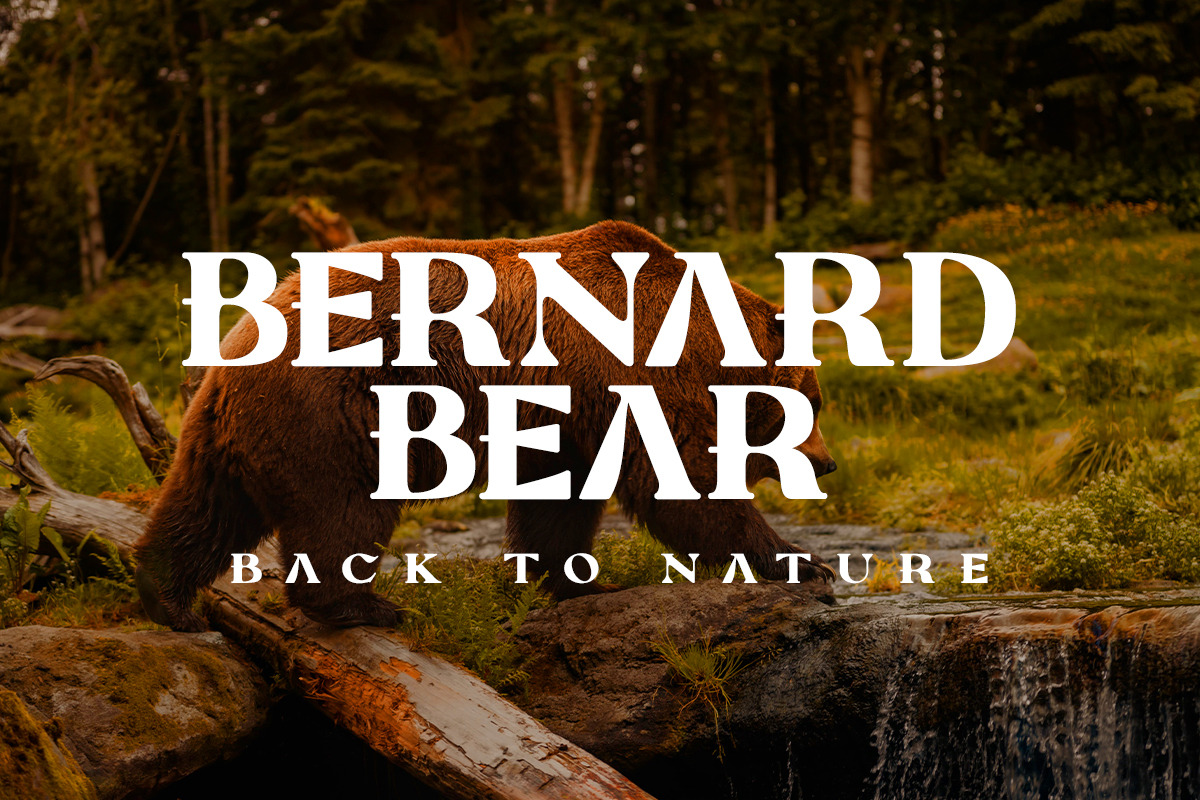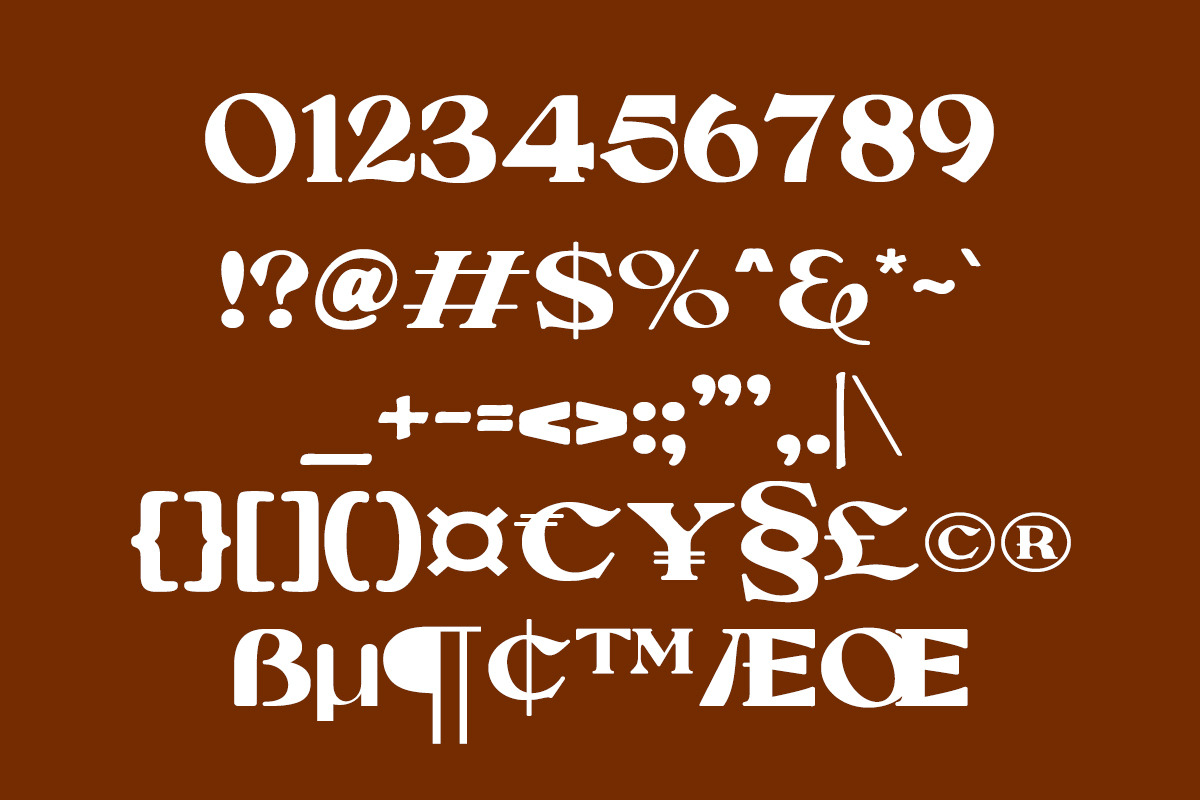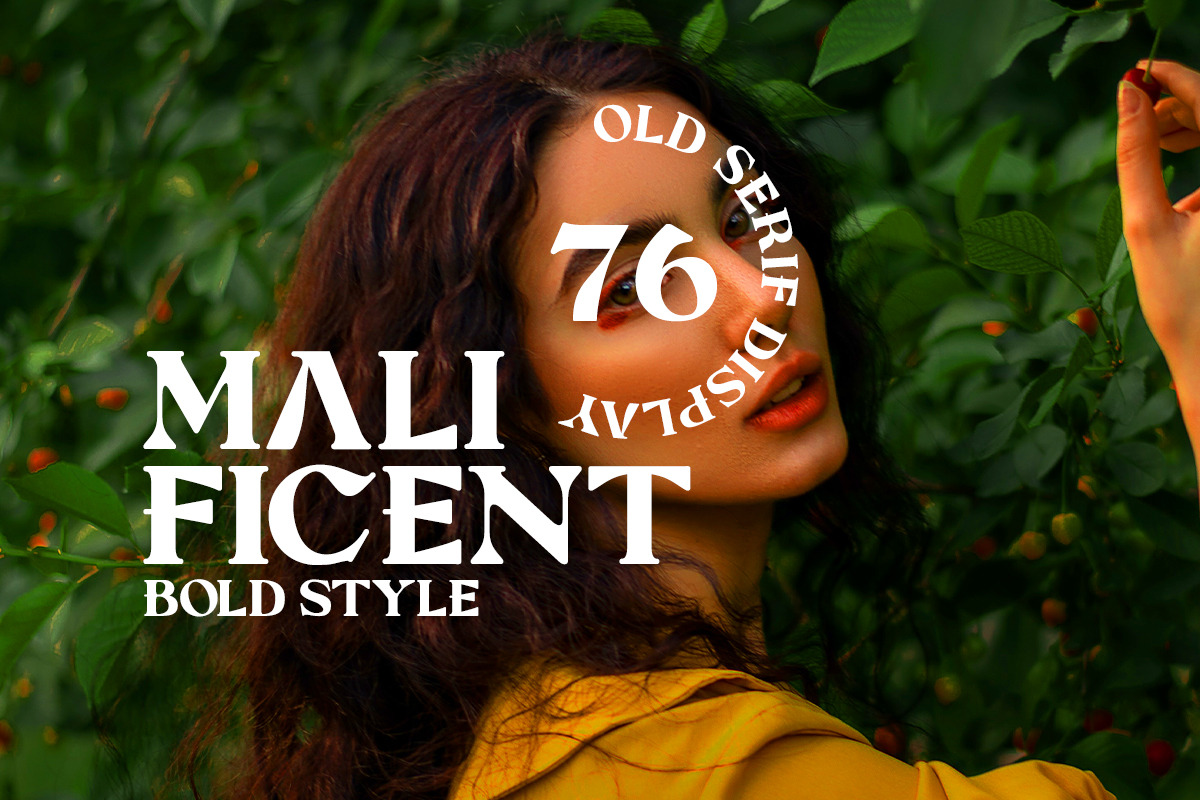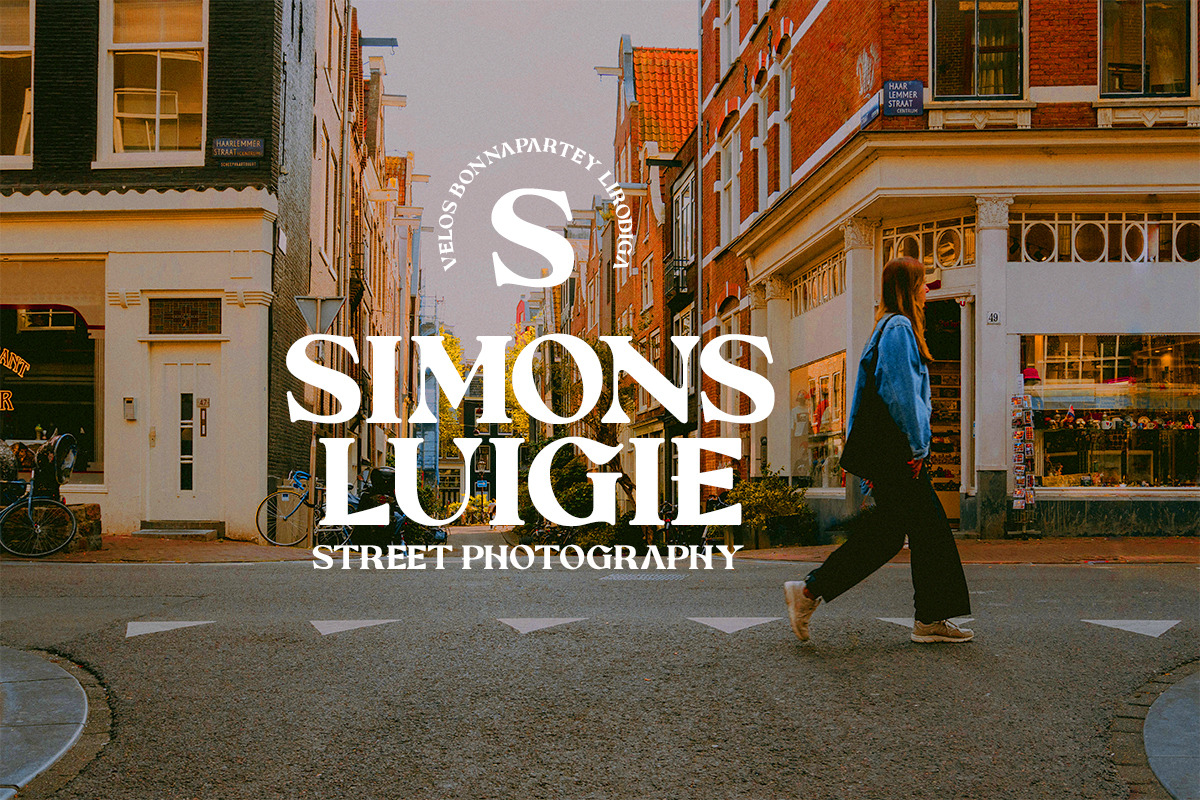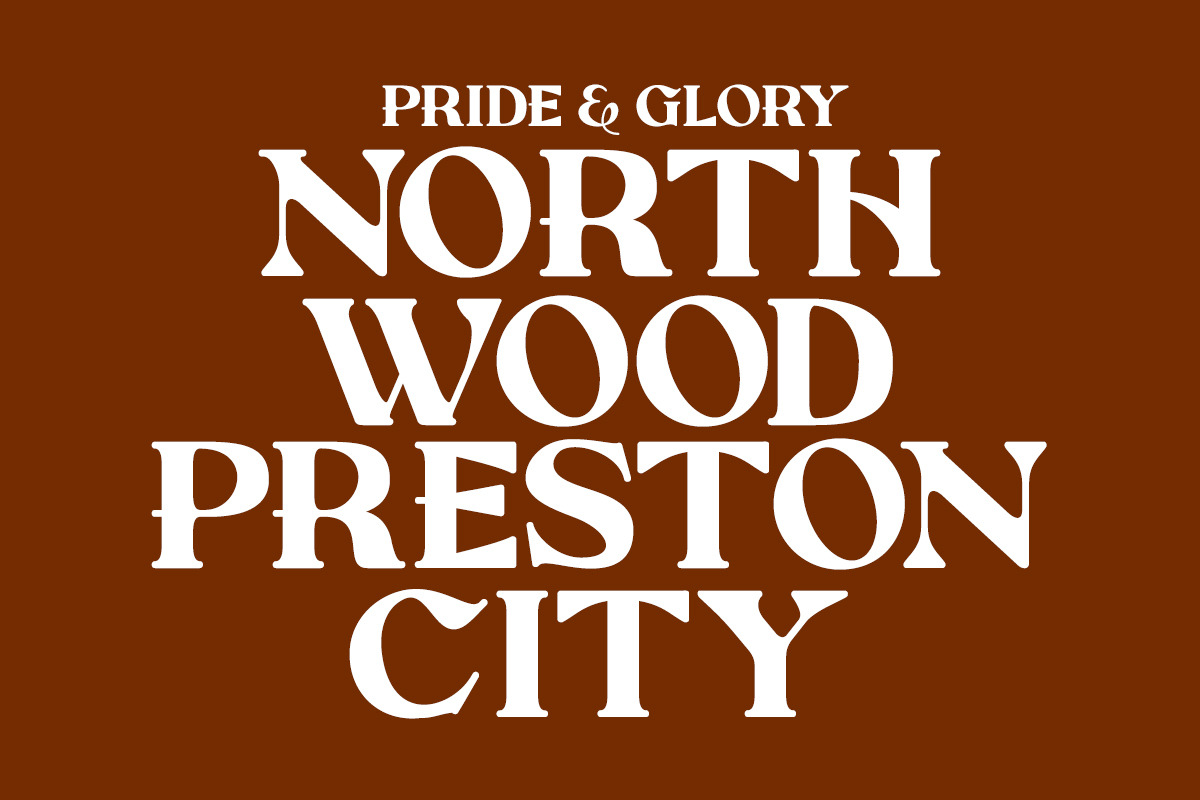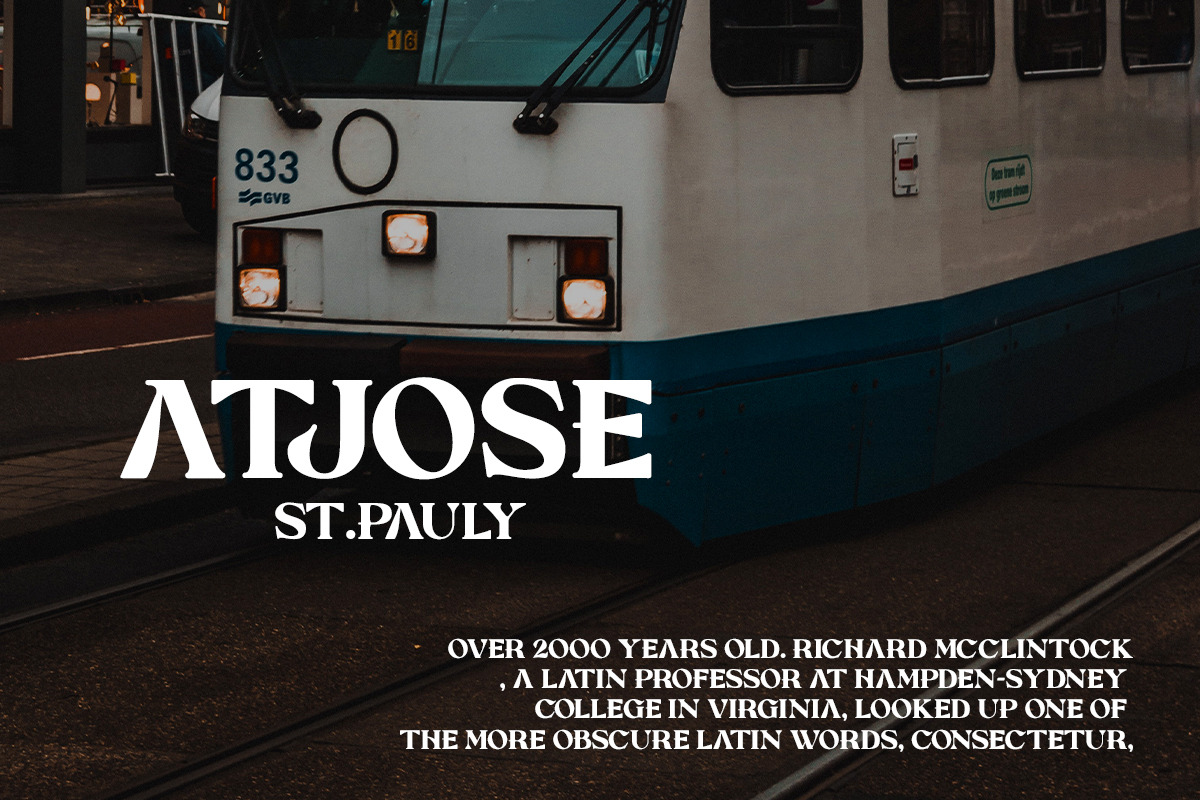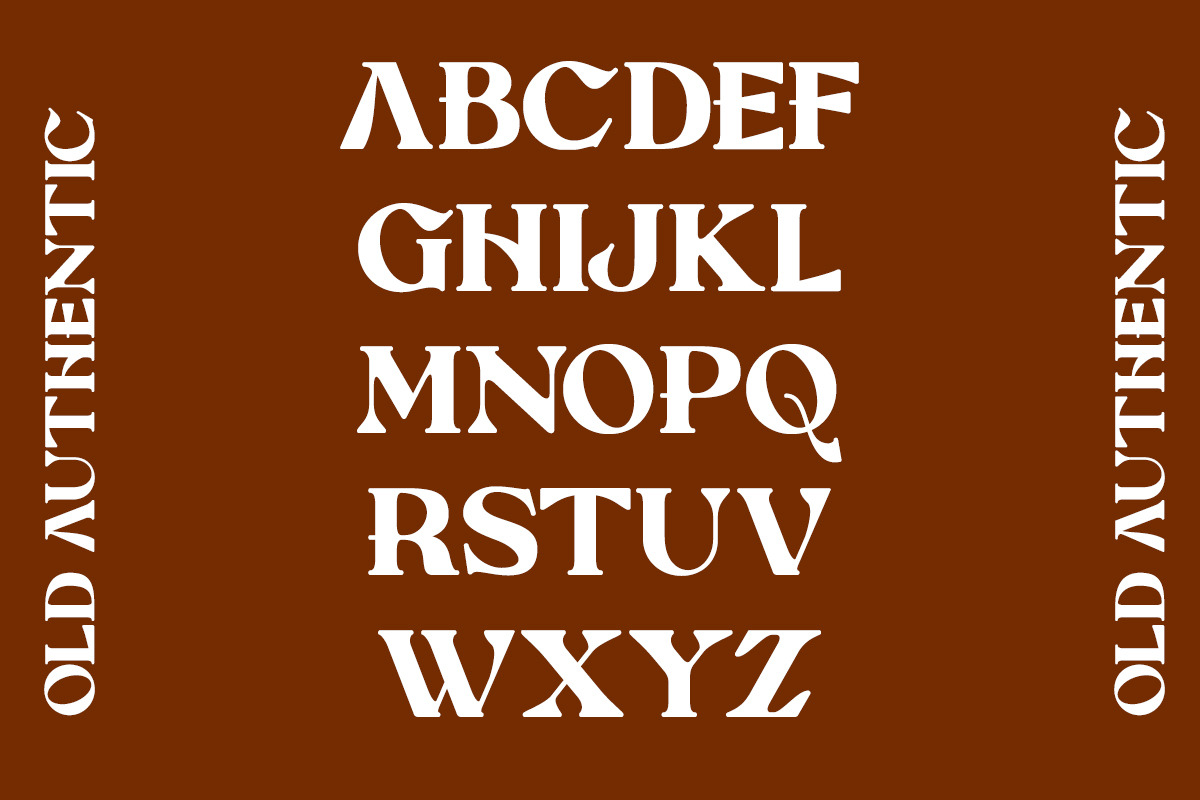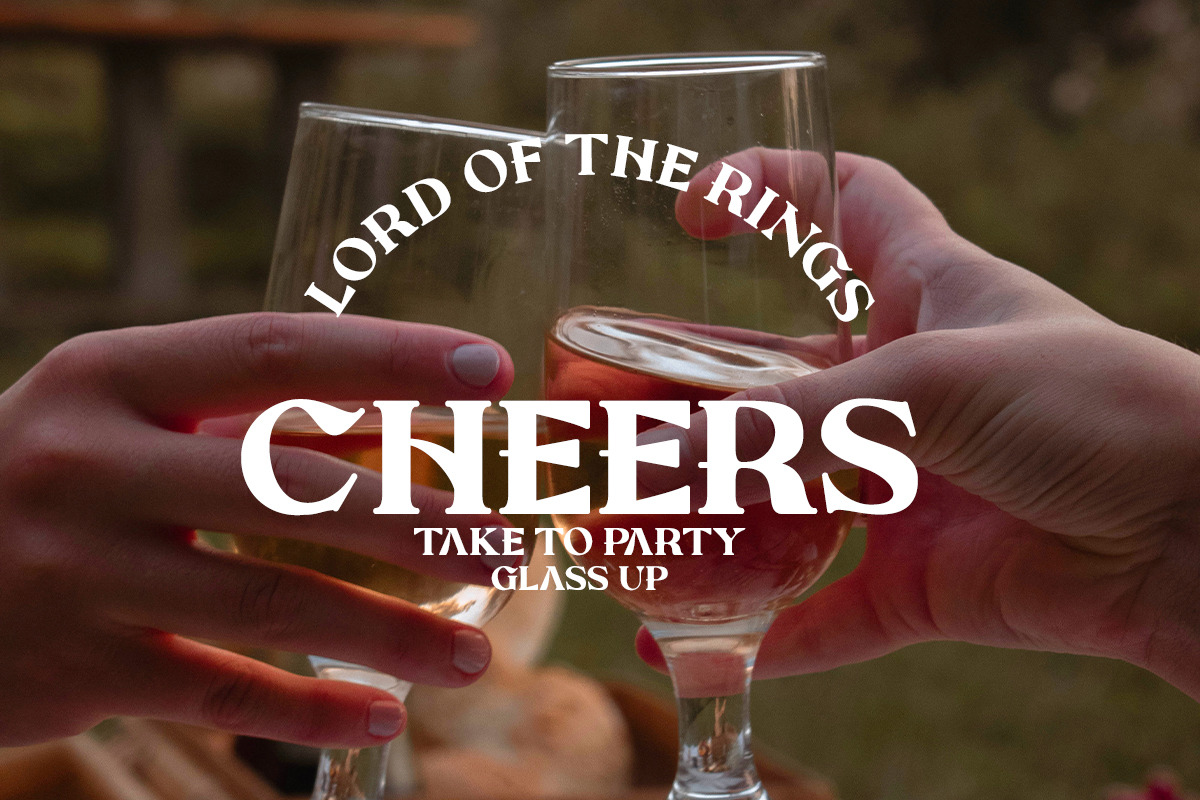
Neo Qiltas | Retro Serif
Neo Qiltas fonts include uppercase letters, numerals, a large range of punctuation. Serif font with retro style. Created for poster, web design, branding, illustrations, badges, and some other works.